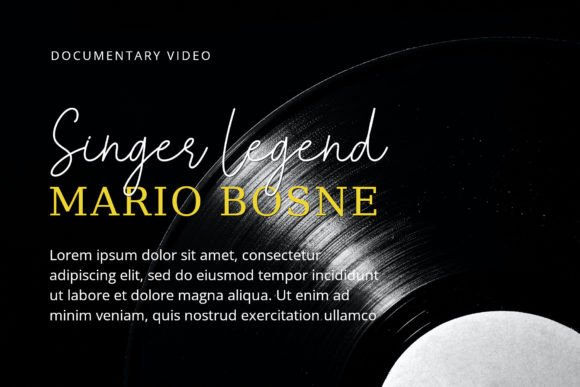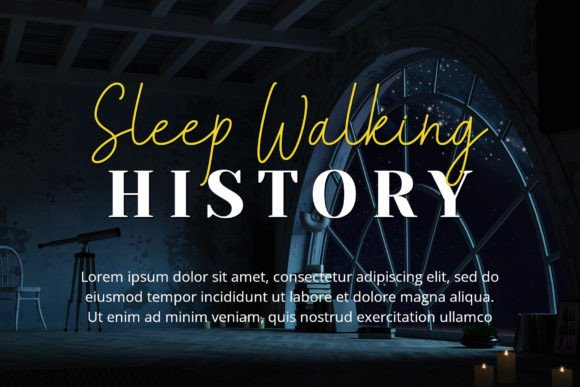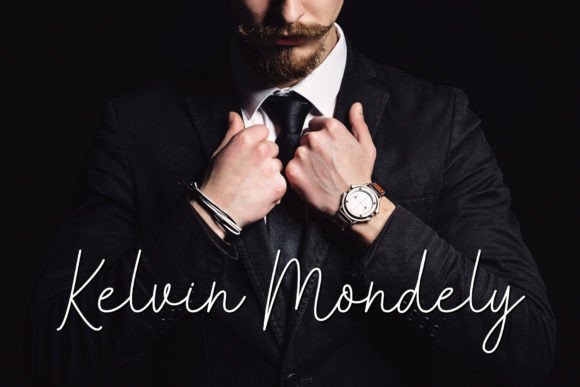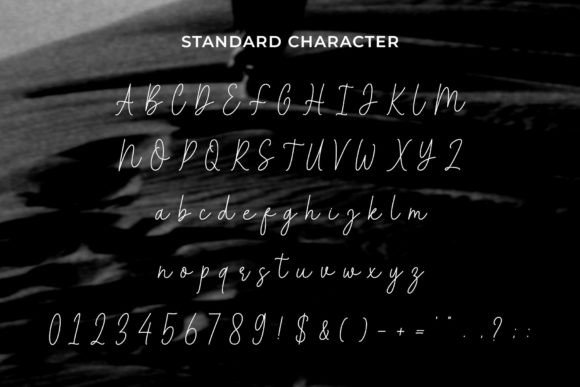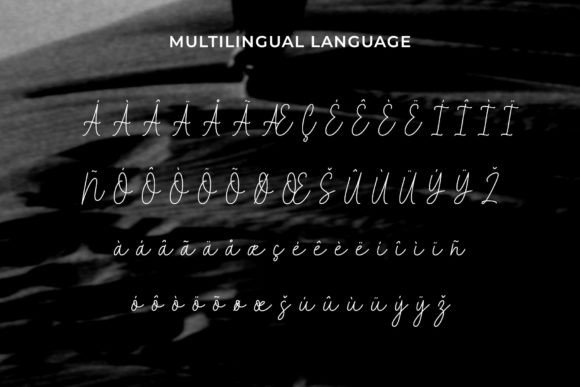
The Ending Font
A Classic Script with Elegant Simplicity
The Ending is a beautiful script font that blends classic design with a clean, elegant look. Each letter features smooth, graceful lines that feel timeless yet fresh. The simple shapes make it easy to use across many different styles while maintaining a polished, professional feel.
Whether you’re designing for branding or personal projects, The Ending adds charm and clarity to every word.
The Ending is a versatile font that works across a wide range of applications. It’s perfect for posters, where the flowing script adds sophistication and catches attention.
Use The Ending for logos and brand materials to create a professional identity that feels refined and approachable. This font is also great for t-shirt designs, product labels, and crafting projects where you want a touch of elegance without feeling overly formal.
The Ending works wonderfully on ID cards and event materials, giving your designs a polished, cohesive look. For social media graphics, quotes, and blog headers, the script style makes every message feel personal and memorable.
This font includes uppercase and lowercase letters, numbers, and punctuation marks. Ligatures are included to help your text look natural and balanced.
Clear, Elegant, and Easy to Read
Even with its classic script style, The Ending stays clear and easy to read in any size. The consistent spacing between letters keeps your text neat, whether you’re working on large headlines or smaller captions.
Many designers pair The Ending with a simple sans-serif font to create visual contrast. Use The Ending for titles and the sans-serif for supporting text. This approach guides the reader’s eye and keeps layouts clean and professional.
To highlight The Ending’s refined look, use soft backgrounds and neutral color palettes. Shades like ivory, blush, and pale gray help the graceful lines stand out without distraction.
For logos and product packaging, consider adding subtle icons or minimalist illustrations to complement the script style. When designing posters or t-shirts, keep layouts simple so the typography stays the main focus.
Think about the feeling you want to create. The Ending is perfect for projects that should feel classic, elegant, and welcoming.
The Ending is more than just a classic script font. It’s a creative tool that transforms everyday words into something special. Its clean curves and smooth flow bring sophistication and personality to any project.
Adding The Ending to your font collection gives you a reliable choice for all types of creative work. From branding and packaging to crafting and social media, this font adapts effortlessly to your ideas.